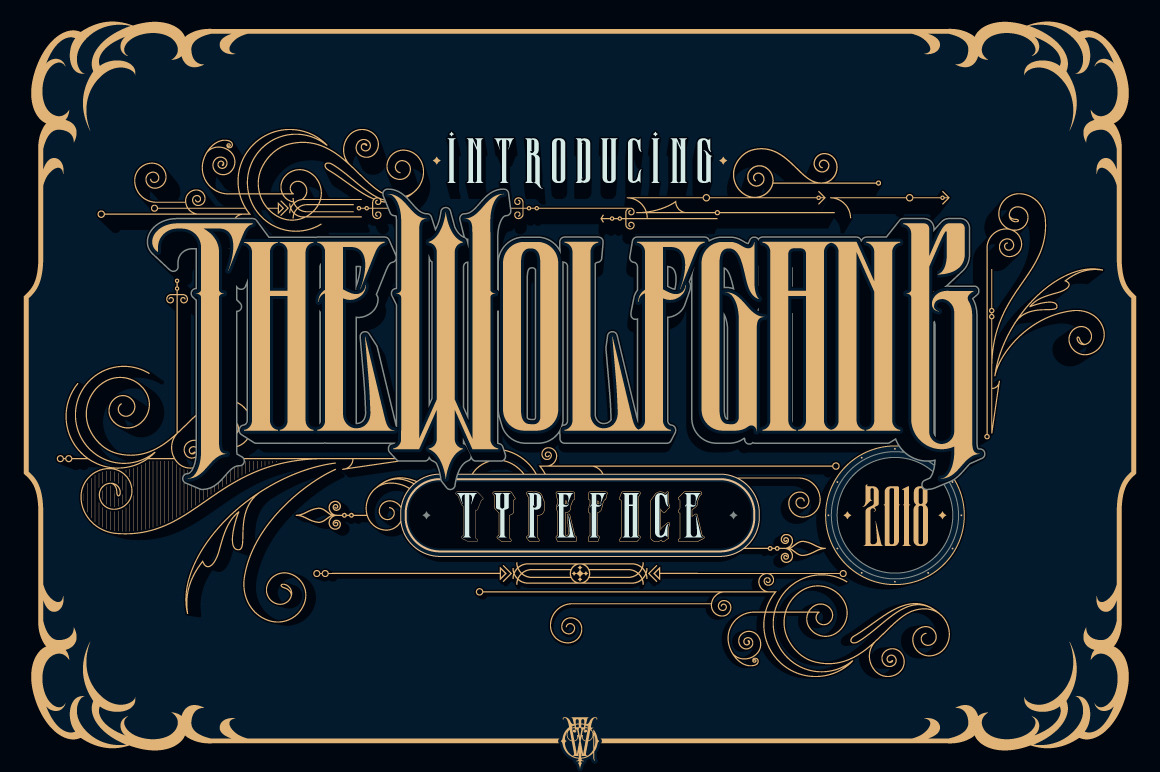
Wolfgang Typeface
Introducing a new Display font called wolfgang. wolfgang typeface is perfect for logo, quote, apparel and other creative applications.